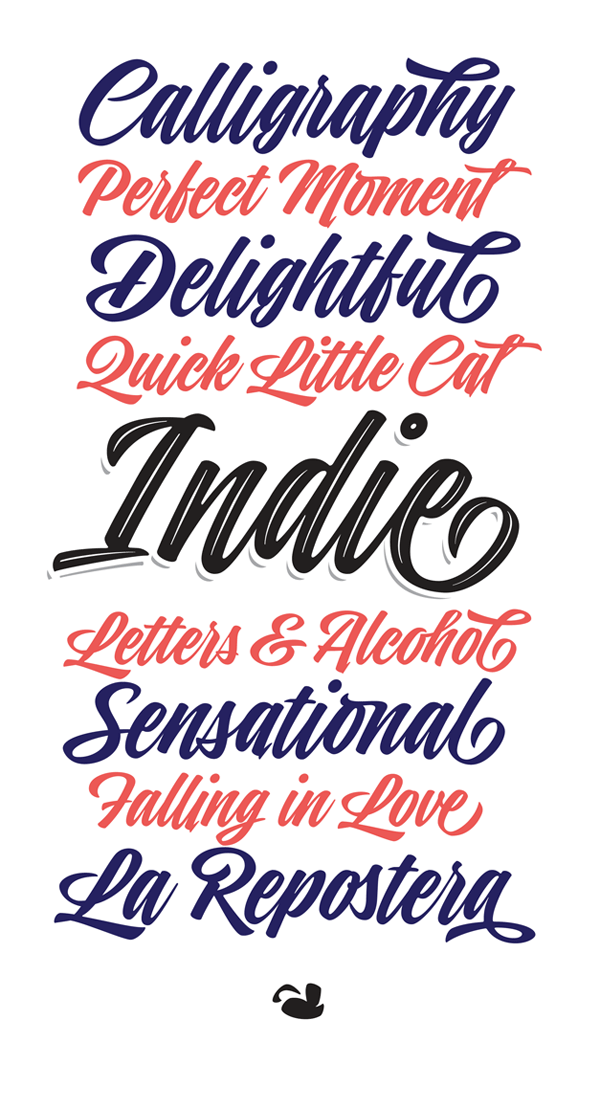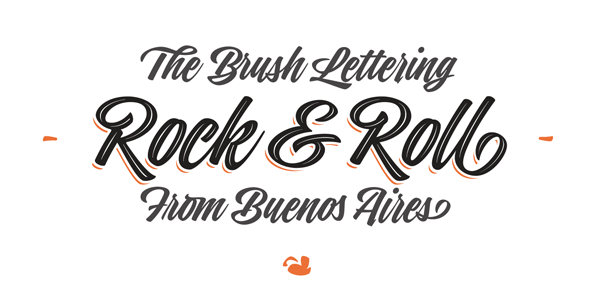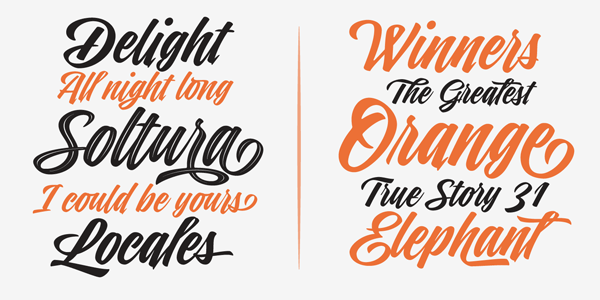
Indie Fonts – Trendy Brush Script Fonts from Lián Types
The Indie fonts from foundry Lián Types, a type family of trendy brush script fonts.
Buenos Aires based type designer Maximiliano Sproviero of foundry Lián Types has created this brush script type family in 2015. His inspiration came from hipsters and indie music – that’s why this type family is called “Indie”.
The Indie fonts consist of 5 styles including a regular version as well as Shade, Inline, Shade Solo, and Capitals. You can use this set of script typefaces for headlines and titles in the style of good old sign paintings. The diverse styles can be combined very easily to create a more natural style.
Indie, a trendy script font by Maximiliano Sproviero of Lián Types.
Indie fonts - typefaces for funky headlines and titles.
Indie fonts – typefaces for funky headlines and titles.
A brush script font family with diverse styles.